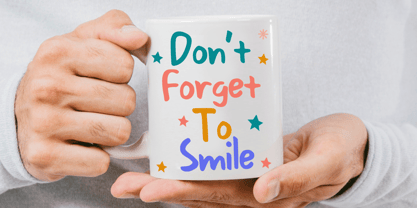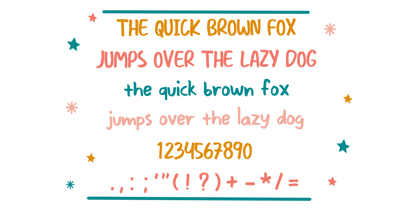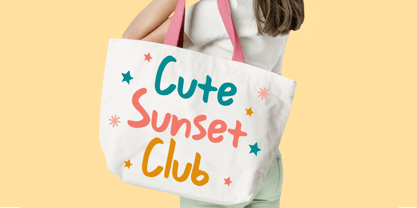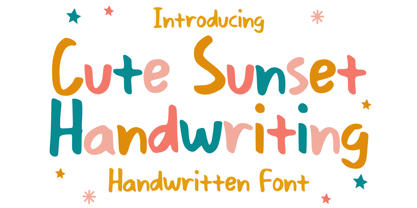
Cute Sunset Handwriting
by Mvmet
The Cute Sunset Handwriting Font Family was designed by Gabriel Valentinus and published by Mvmet. Cute Sunset Handwriting contains 1 styles.
Introducing Cute Sunset Handwriting, a whimsically charming comic font that's versatile and delightful to use. With its playfulness, it promises to infuse an unmatched sense of fun and sophistication into any design project. This font is your perfect tool for creating standout designs, which range from captivating stickers, unique t-shirts, and eye-catching logos to intriguing magazine covers and enchanting book jackets. Are you into comics or cartoon illustrations? Cute Sunset Handwriting will be your go-to font. It is equally ideal for everyday typing tasks. Experiencing Cute Sunset Handwriting is a feast for the eyes, and its presence will supercharge your designs with an irresistibly cool vibe. Unleash your creativity with Cute Sunset Handwriting and watch your designs come to life!
Designers: Gabriel Valentinus
Publisher: Mvmet
Foundry: Mvmet
Design Owner: Mvmet